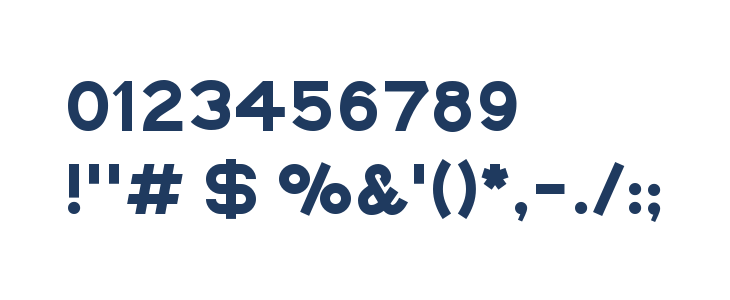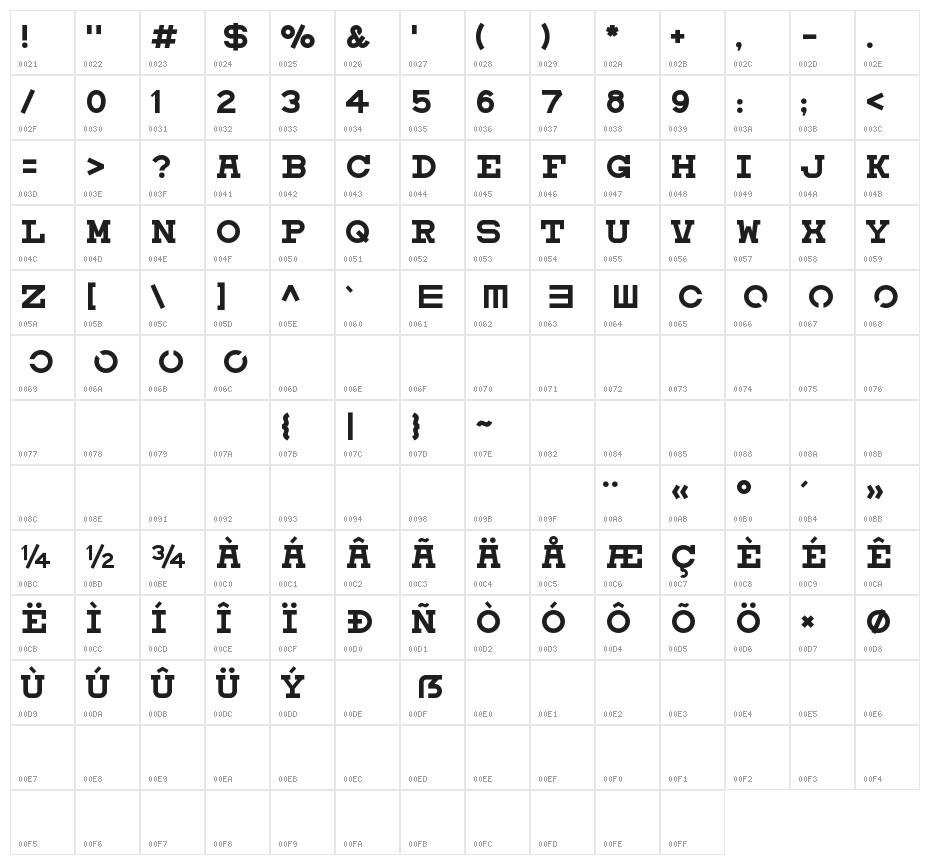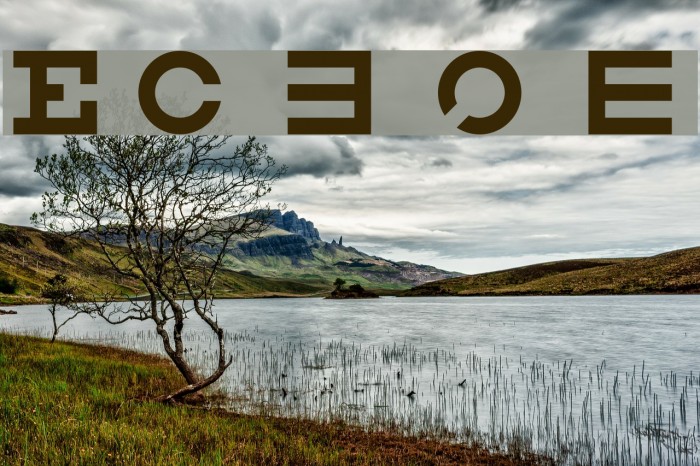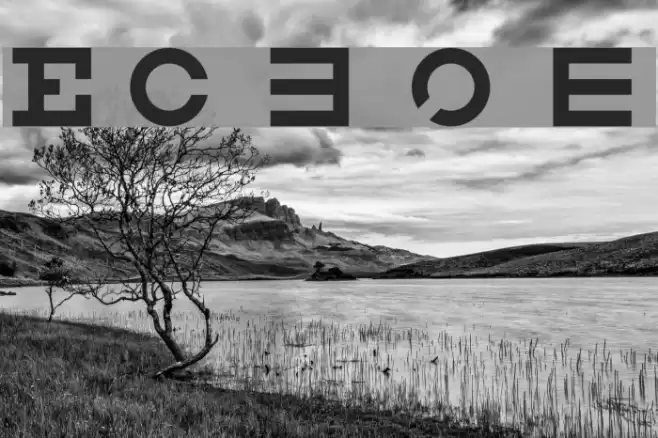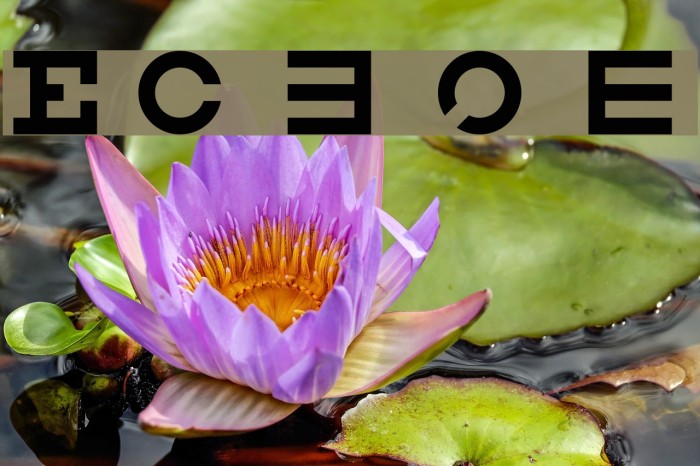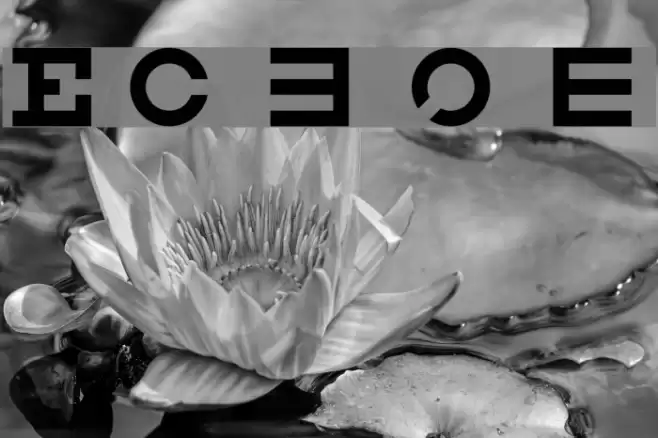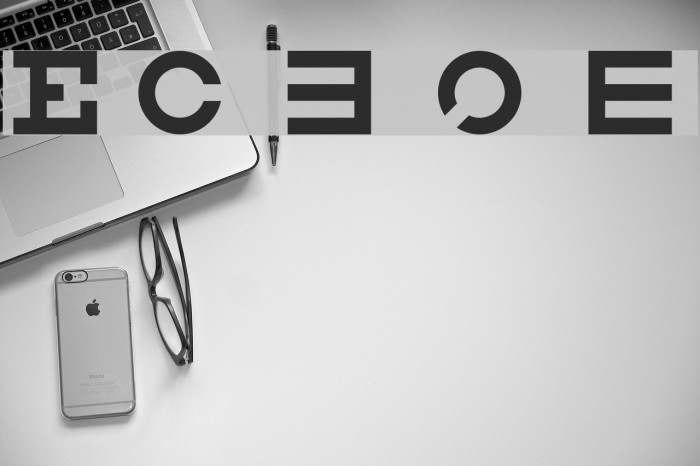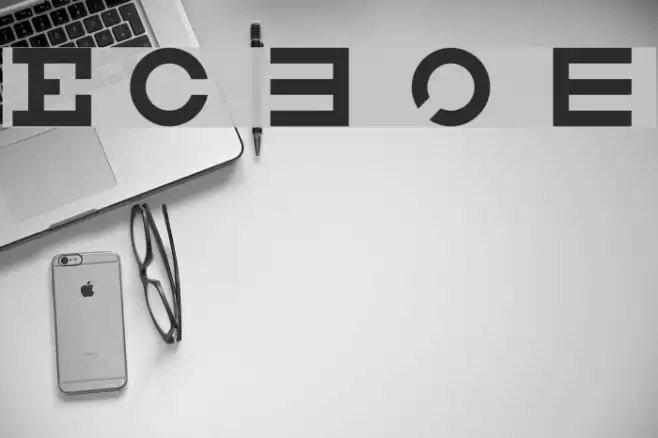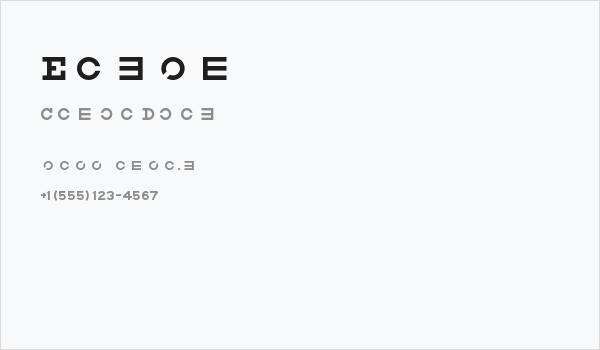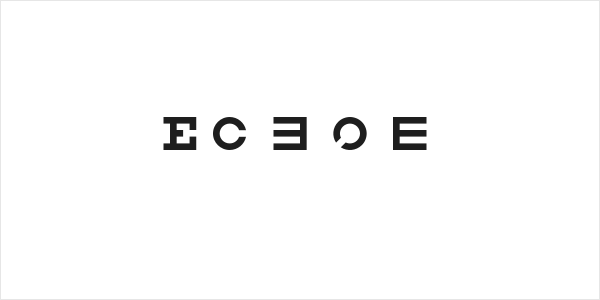
Eyechart Font
Eyechart Description
This font features bold, geometric letterforms with a strong presence and high legibility. The uppercase letters are uniform in height and width, creating a balanced and structured appearance. The numbers are similarly bold, ensuring clarity and readability. Special characters are designed to match the overall robust style, making them stand out effectively. The font's design is reminiscent of traditional eye chart typography, emphasizing simplicity and functionality. Its clean lines and lack of ornamentation make it suitable for a variety of applications where clarity is paramount.
| Proposed Projects | Ideal for signage, posters, headlines, and any project requiring clear and impactful typography. |